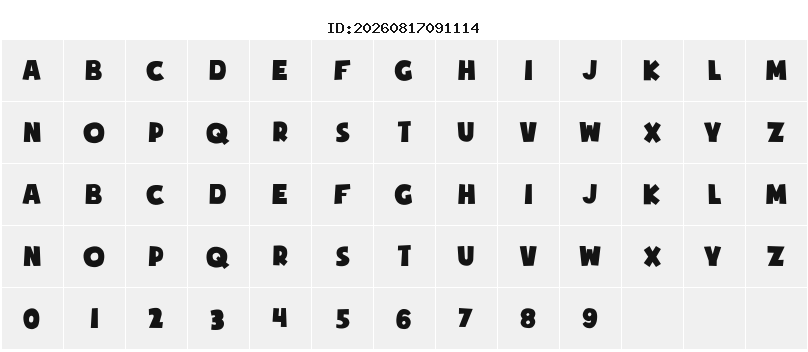
Soup of Justice Preview
• Font Name: Soup of Justice
• Font Style: Soup of Justice
• Full Font Name: Soup of Justice
• PostScript Name: SoupofJustice
• Designer: SoJa
About Soup of Justice.ttf
Soup of Justice.ttf is a modern, elegant sans-serif font designed for ultimate readability and visual harmony. Perfect for branding, headlines, web design, and print materials.